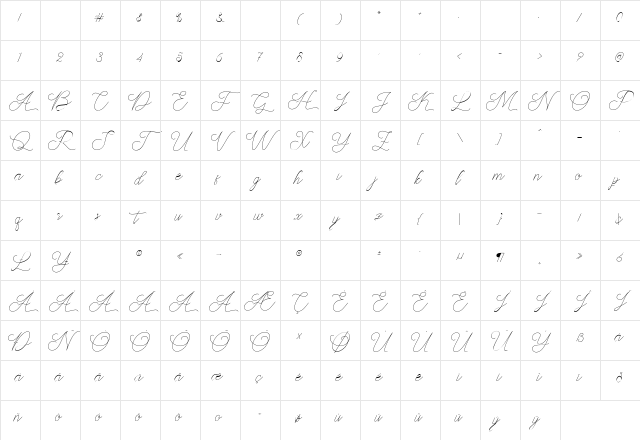
Abbassy Script Regular Free Font
Abbassy Script Regular
Foundry: Wandani Creative
Designer: Rizaldi Wandani
Design Context for Abbassy Script
Abbassy Script flows with the natural rhythm of handwritten lettering, making it ideal for designs that call for warmth and personal expression.
Font Pairing: Combine Abbassy Script with a simple geometric sans for maximum contrast - the tension between flowing curves and clean structure is a classic typographic pairing.
Pro Tip: Use Abbassy Script for short runs of text - names, titles, or taglines. Extended body copy in script faces tires the eye quickly.